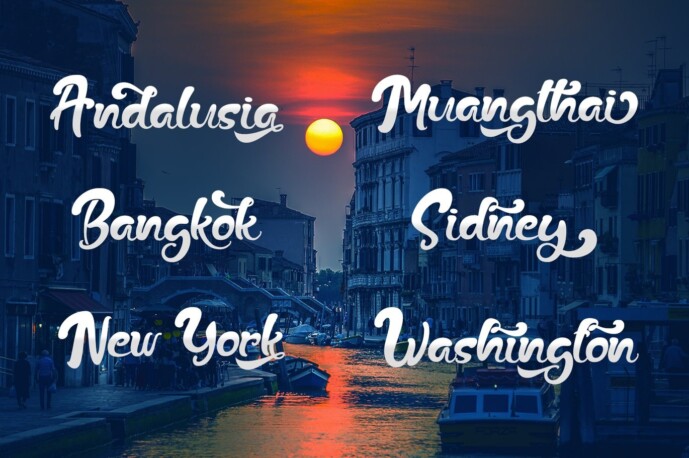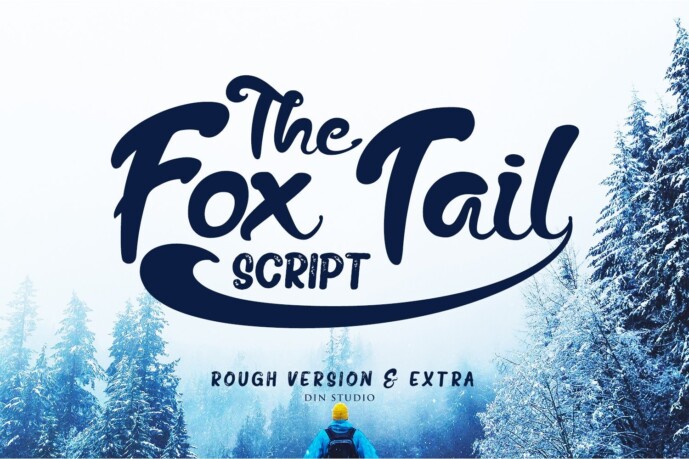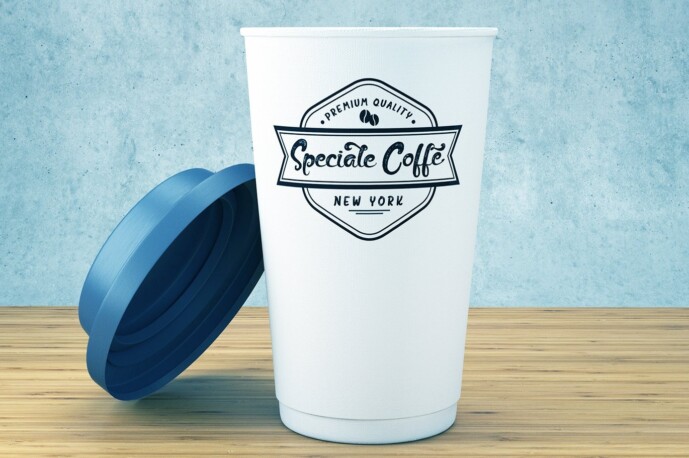
The Fox Tail Font Family
Designer: Din Studio
The Fox Tail Font — Font Duo&Extras is a font inspired by retro style and fox tail. Its unique and attractive design is therefore suitable for logos, branding projects, product packaging, quotes, greeting cards and many more.
The Fox Tail Sans
The Fox Tail Rough
The Fox Tail Regular
The Fox Tail Extra